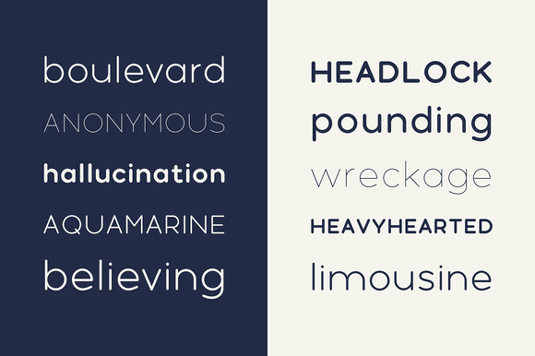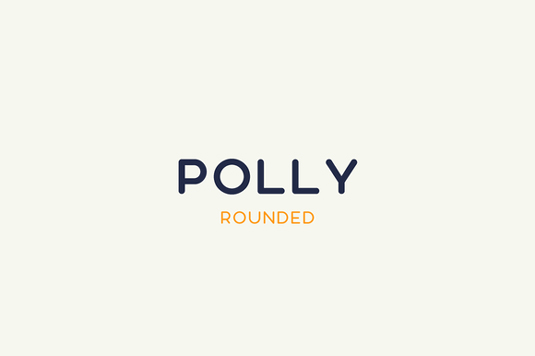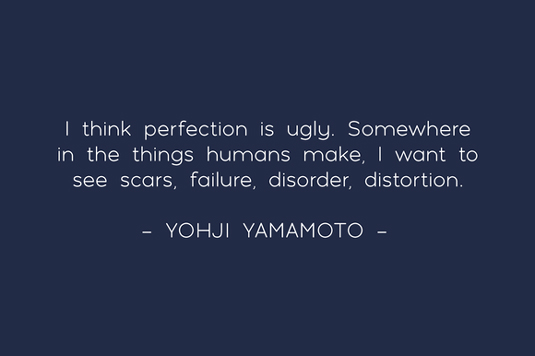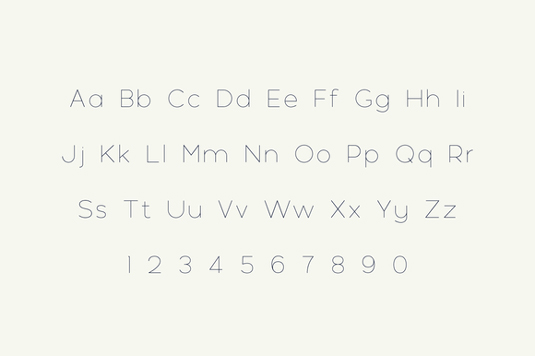
Font of the day: Polly
Polly by Reghardt Grobbelaar
Kicking off our font of the day posts this week is designer Reghardt Grobbelaar with his latest creation, geometric sans typeface Polly. A clean and simple design, Polly is great for a variety of print and digital projects and most suited to headlines, logos and stationery.